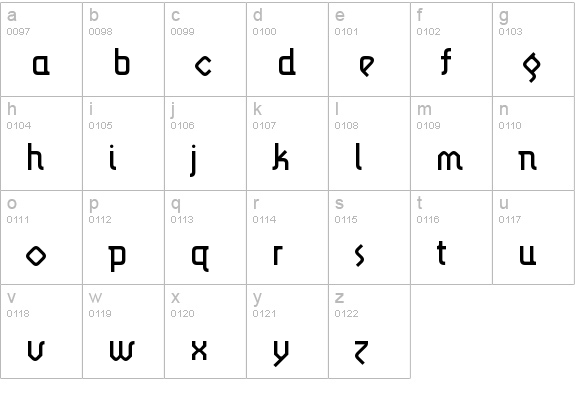
LunatixLight Regular is the standard, neutral variant in the LunatixLight typeface family \xE2\x80\x94 well suited to general body text, paragraphs, and standard typographic work.
LunatixLight Regular font is a sleek and modern typeface that exudes elegance and sophistication. With its clean lines and stylish curves, this font is perfect for a wide range of design projects, from branding to editorial design. Its versatility makes it a must-have in any designer's toolkit. The best part? LunatixLight Regular font is available for free download at FontsMarket.com. You can easily access this stunning font and elevate your designs without breaking the bank. Don't miss out on the opportunity to add this beautiful typeface to your collection and take your projects to the next level.